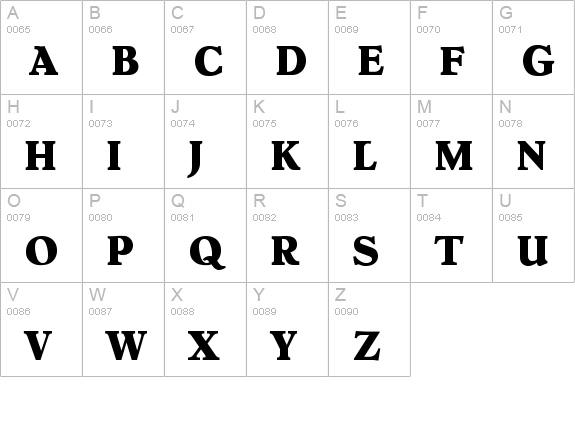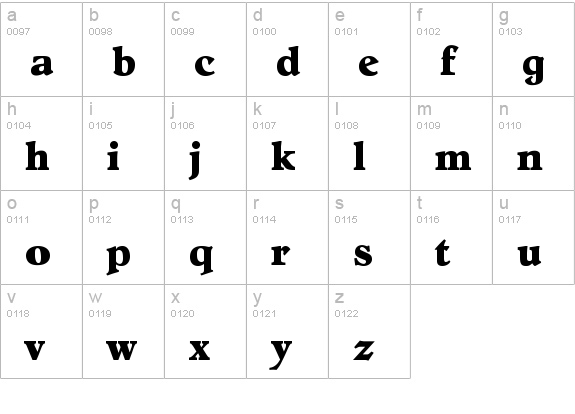
Hoboken-ExtraBold is an extra-heavy, attention-grabbing variant in the Hoboken typeface family \xE2\x80\x94 well suited to high-impact headlines, posters, and bold branding.
Introducing Hoboken-ExtraBold, a striking and powerful font designed to make a bold statement in any project. With its strong and commanding presence, Hoboken-ExtraBold is perfect for headlines, logos, branding, and any design project that requires a touch of modern sophistication. This font features thick, heavy lines that exude confidence and strength, making it ideal for grabbing attention and leaving a lasting impression. The clean and stylish design of Hoboken-ExtraBold ensures readability and impact, making it a versatile choice for a wide range of applications. Best of all, Hoboken-ExtraBold is available for free download at FontsMarket.com, allowing you to access this stunning font without any cost. Don't miss out on the opportunity to enhance your designs with the bold and impactful Hoboken-ExtraBold font – download it today and make your projects stand out from the crowd.